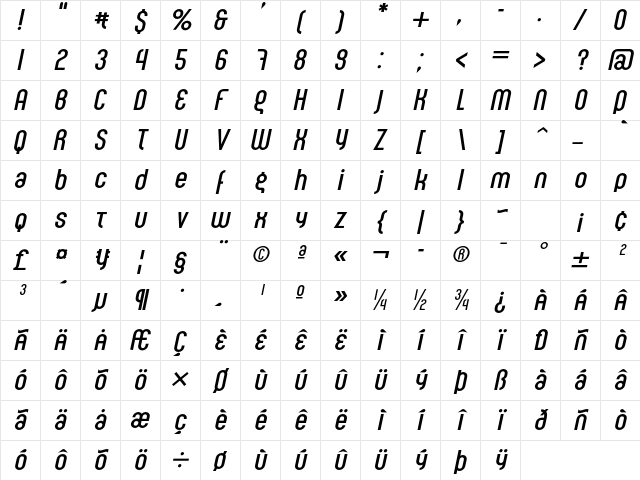
Seebad LT Std Italic
Designer: Silvan Kaeser
Design Context for Seebad LT Std
Seebad LT Std is a composed and adaptable typeface that performs quietly and consistently across a wide range of design contexts. The slanted form adds forward momentum and visual energy. Its slender proportions lend an understated elegance to any composition.
Pro Tip: Use Seebad LT Std for emphasis, pull quotes, and subheadings where its slanted energy can add rhythm to the layout.